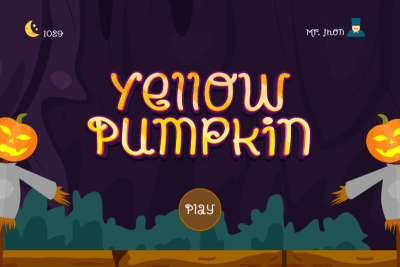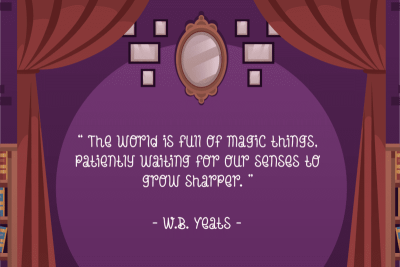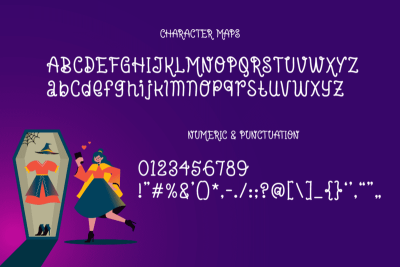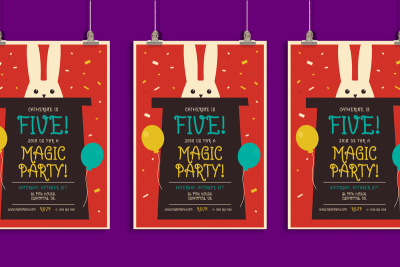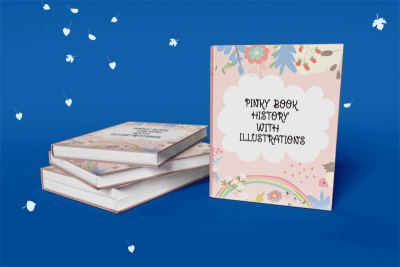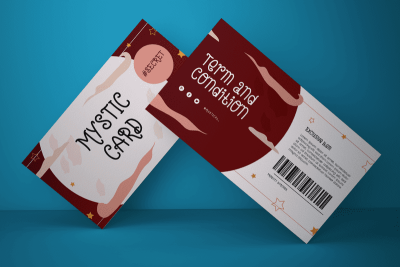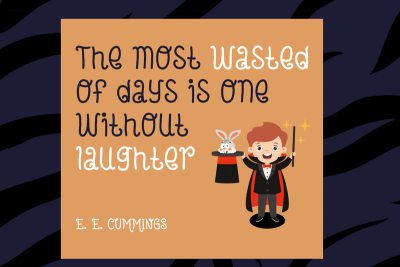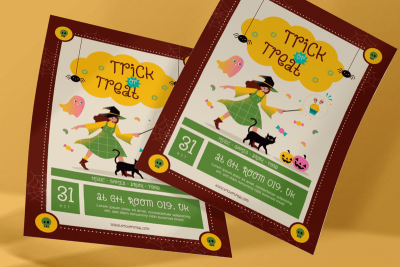
Cute Font Girly Twirly
Girly Twirly
Cute Font Girly Twirly is an enchanting, whimsical display font that truly brings a sprinkle of magic to any design. Not only does it combine playful loops, swirls, and decorative touches, but it also evokes the wonder and joy of childhood imagination. Each letter has its own personality, full of energy and lighthearted charm, which is designed to capture attention with a delightful and approachable style. Moreover, the structure blends bold, rounded strokes with subtle curves and twirls, making it both eye-catching and easy to read, whether used for headlines or larger text.
Girly Twirly’s lighthearted look makes it perfect for designs that need a magical, feel-good vibe. With a handcrafted, slightly quirky appearance, this font effortlessly infuses warmth and creativity into any project. Therefore, it works well for logos, website headers, or event invitations, adding a memorable and joyful touch. The font’s unique design elements, such as looping tails and twirling accents, create a sense of motion. As a result, it is visually engaging and invites interaction.
Furthermore, Girly Twirly is versatile within the playful and cute design genre. It works wonderfully as a title font in children’s books, where it enhances stories with a magical quality. Because of its clean lines and structured yet whimsical look, it ensures readability across different media, from print to digital. Thus, this font offers designers the flexibility to be creative while maintaining clarity. It allows them to create visually appealing compositions without sacrificing readability.
Cute Font Girly Twirly Market Applications
Cute Font Girly Twirly truly shines in creative projects aimed at young audiences or those seeking a sense of fun and magic. For instance, it’s perfect for children’s book covers, adding a fairytale-like charm to storytelling. Educational materials also benefit from this font, as its playful style keeps children engaged and makes learning more enjoyable. In fact, brands that cater to family-friendly products—such as toys, games, and educational apps—can use this font to create a friendly and warm visual identity.
Event planners, on the other hand, can use Cute Font Girly Twirly to bring personality to invitations, banners, and decor. It is especially suited for joyful events like birthdays and baby showers, setting a cheerful and magical tone. Merchandise designers also find value in this font since it adds a unique aesthetic to children’s clothing, playful accessories, and products like mugs and stickers. Additionally, the font’s festive appeal makes it ideal for seasonal designs, bringing vibrant energy to Halloween, Christmas, or Easter projects.
Social media content creators, bloggers, and influencers will find Girly Twirly enhances the charm of their visual content. Its enchanting style turns posts into eye-catching, shareable pieces that attract a broad audience. For those focusing on family-oriented or whimsical themes, Girly Twirly’s magic effectively communicates messages in a friendly and engaging way. Similarly, stationery designers can use it to create notebooks, planners, and greeting cards with a magical twist. Ultimately, whether in branding, personal projects, or commercial designs, Cute Font Girly Twirly adds creativity, warmth, and charm. This font invites everyone—kids and adults alike—into a world of imagination and joy.
Overall, Cute Font Girly Twirly blends cuteness, magic, and versatility. It’s more than just a typeface; it’s a story waiting to unfold in every design it touches.